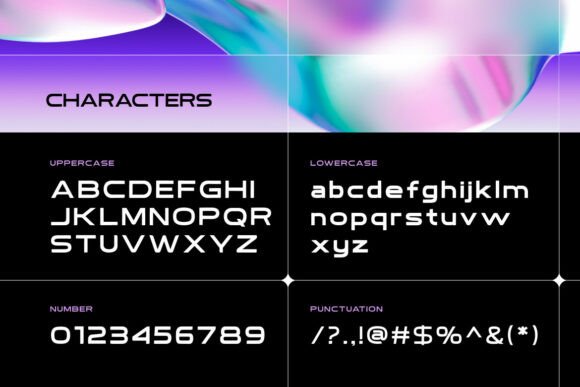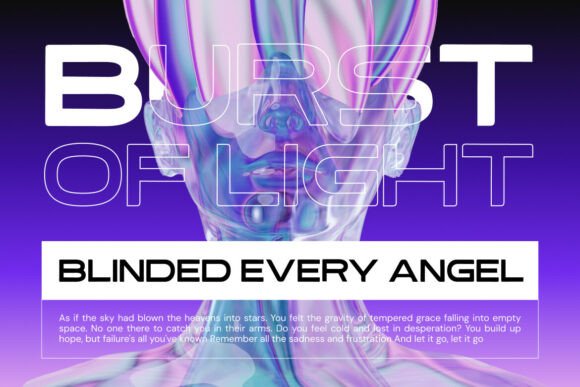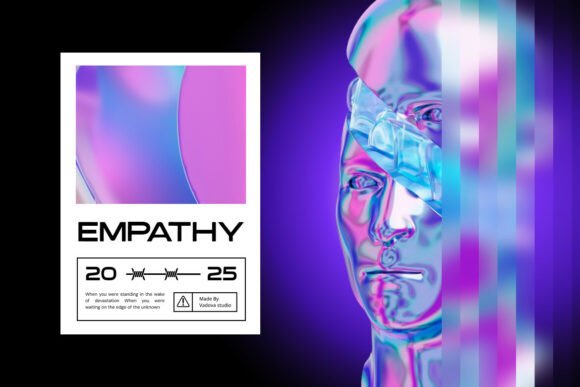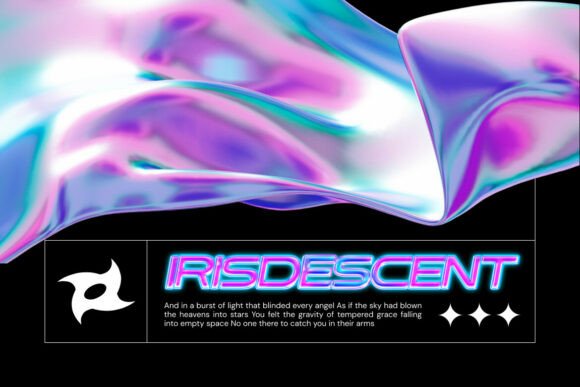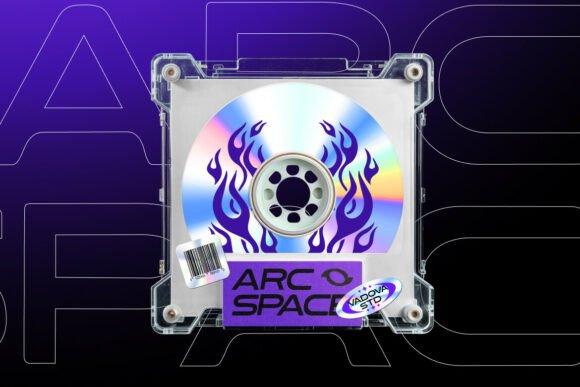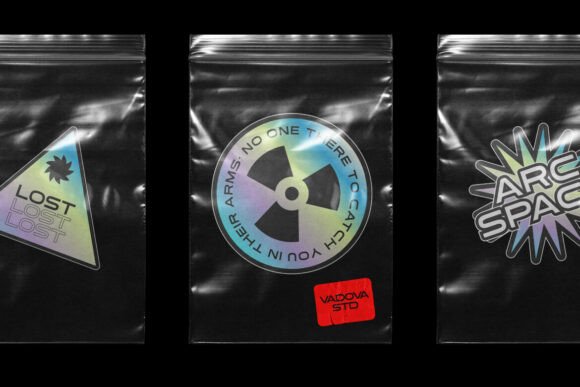
Introducing Arc Space Font: Elevate Your Designs to New Heights
In the realm of typography, few fonts capture the essence of modernity and futurism as effectively as Arc Space. This sleek, rounded sans-serif typeface is meticulously engineered to evoke the precision and sophistication of space-age technology, making it an ideal choice for designers seeking to infuse their projects with a cutting-edge aesthetic. With its aerodynamic curves, uniform stroke weight, and geometric letterforms, Arc Space is poised to revolutionize the way you approach design.
The Design Philosophy Behind Arc Space
Arc Space’s design is rooted in the principles of minimalism and futurism. Each letterform is crafted with smooth, flowing curves that convey a sense of dynamism and movement, reminiscent of spacecraft and high-tech machinery. The font’s uniform stroke weight ensures a cohesive and harmonious appearance, while its geometric shapes lend an air of precision and sophistication. This thoughtful design approach enables Arc Space to seamlessly integrate into a wide range of applications, from cinematic titles to tech branding and beyond.
Key Features of Arc Space Font
- Smooth, Aerodynamic Curves: Arc Space’s curves are designed to evoke the sleekness of space-age technology, imparting a sense of speed and agility to your designs.
- Uniform Stroke Weight: The font’s consistent stroke weight ensures a balanced and harmonious appearance, perfect for creating cohesive visual identities.
- Geometric Letterforms: Inspired by the precision of geometric shapes, Arc Space’s letterforms embody the sophistication and modernity of futuristic design.
- Clean Silhouettes: The font’s clean lines and minimal ornamentation create a striking, high-tech aesthetic that’s perfect for sci-fi and tech-related applications.
Ideal Applications for Arc Space Font
Given its futuristic and minimalist design, Arc Space is an incredibly versatile font suitable for a variety of applications, including:
- Sci-Fi Cinematic Titles: Elevate your movie titles and credits with a font that embodies the essence of space exploration and futuristic worlds.
- Independent Tech Startup Branding: Establish your tech startup’s brand identity with a modern, sophisticated font that conveys innovation and forward-thinking.
- Luxury Automotive Marketing: Add a touch of high-tech sophistication to your luxury automotive marketing materials, such as brochures, advertisements, and website headers.
- High-Impact Cyber-Culture Social Media Headers: Make a bold statement on social media with Arc Space’s striking, futuristic aesthetic, perfect for cyber-culture, gaming, and tech-related content.
Why Choose Arc Space Font?
In a crowded design landscape, Arc Space offers a unique combination of style, sophistication, and versatility. By choosing Arc Space, you’ll benefit from:
- Enhanced Visual Impact: Arc Space’s futuristic design ensures your projects stand out in a crowded market, capturing the attention of your audience.
- Flexibility and Versatility: The font’s wide range of applications makes it an excellent addition to any designer’s toolkit, suitable for various projects and industries.
- Professionalism and Sophistication: Arc Space’s high-tech aesthetic lends an air of professionalism and sophistication to your designs, perfect for brands and projects seeking to establish a modern, forward-thinking identity.
Arc Space Font is a game-changer for designers seeking to infuse their projects with a modern, futuristic aesthetic. With its sleek curves, uniform stroke weight, and geometric letterforms, this font is poised to elevate your designs to new heights. Whether you’re working on a sci-fi movie title, tech startup branding, or luxury automotive marketing, Arc Space is the premier choice for creating visually stunning and impactful designs. Launch your designs into the next dimension with Arc Space – the ultimate font for those who dare to be different.